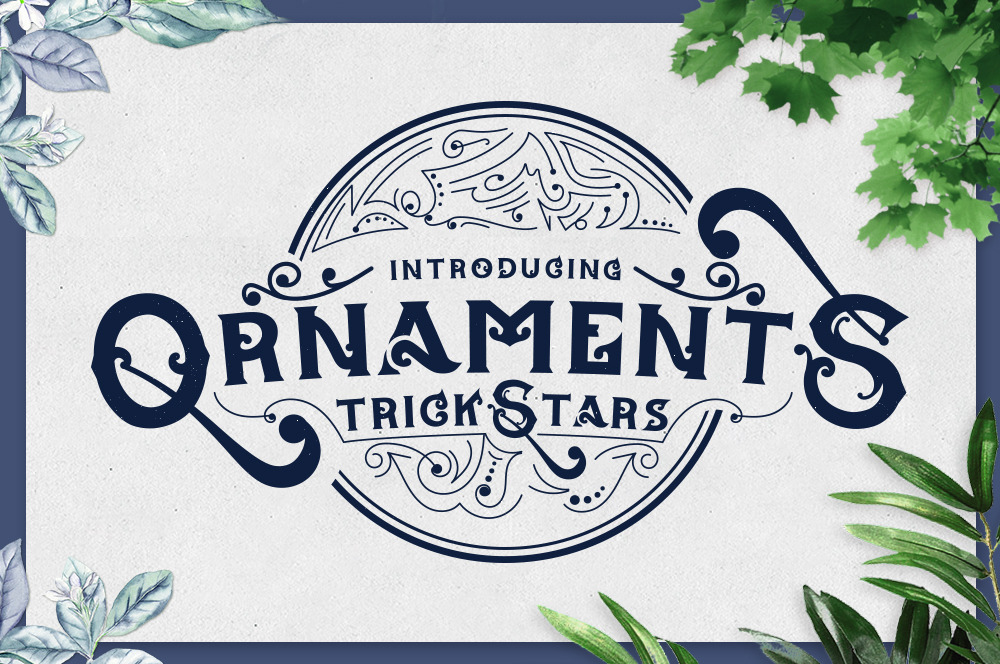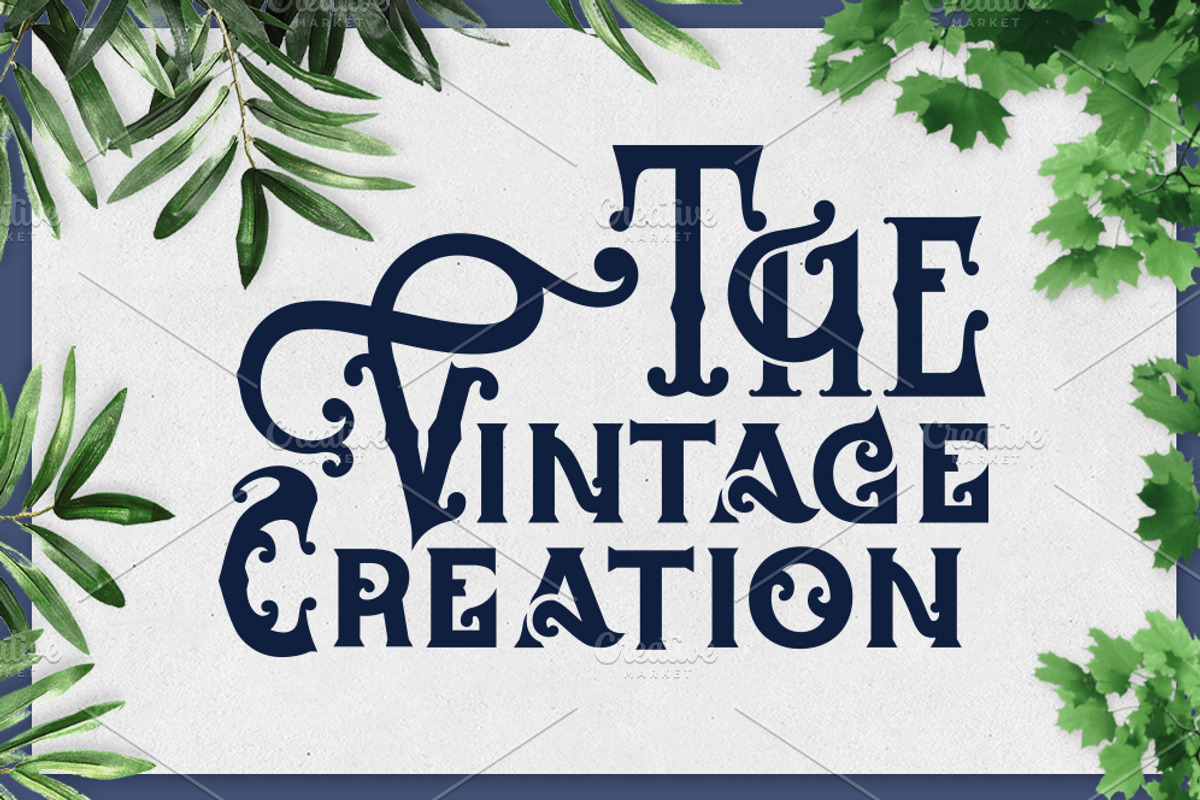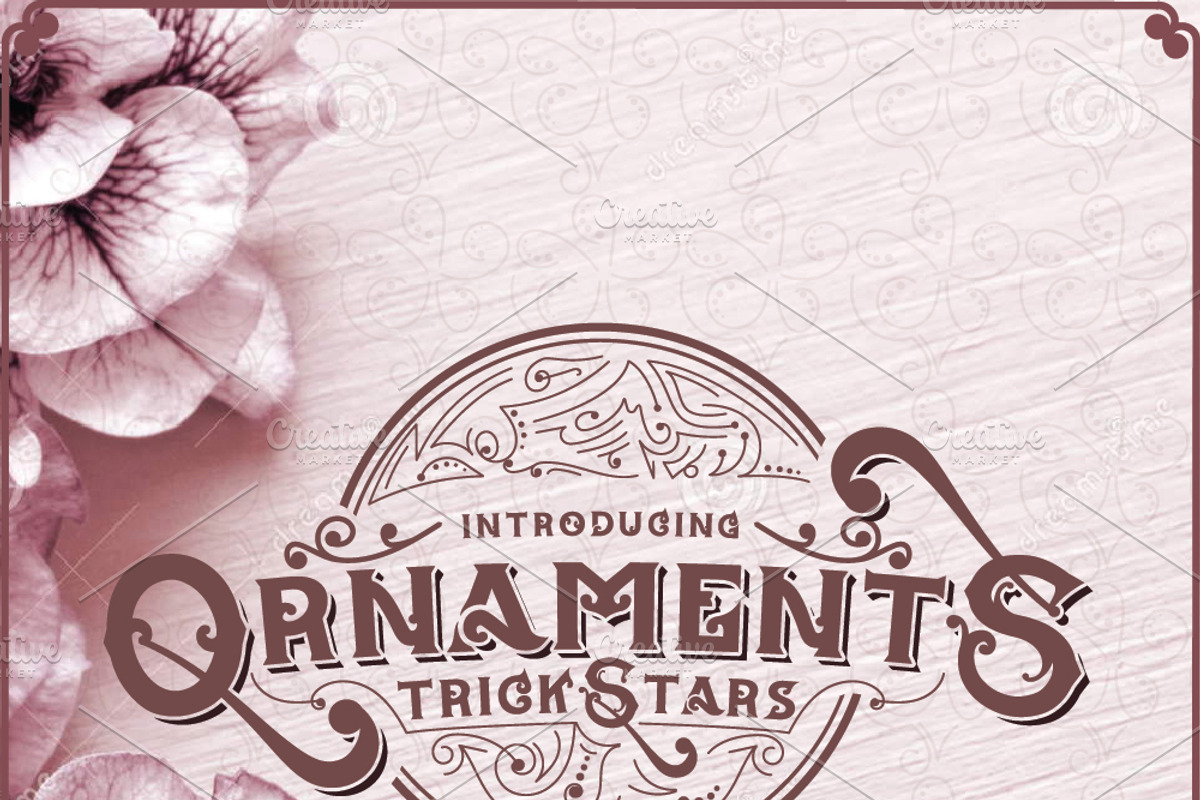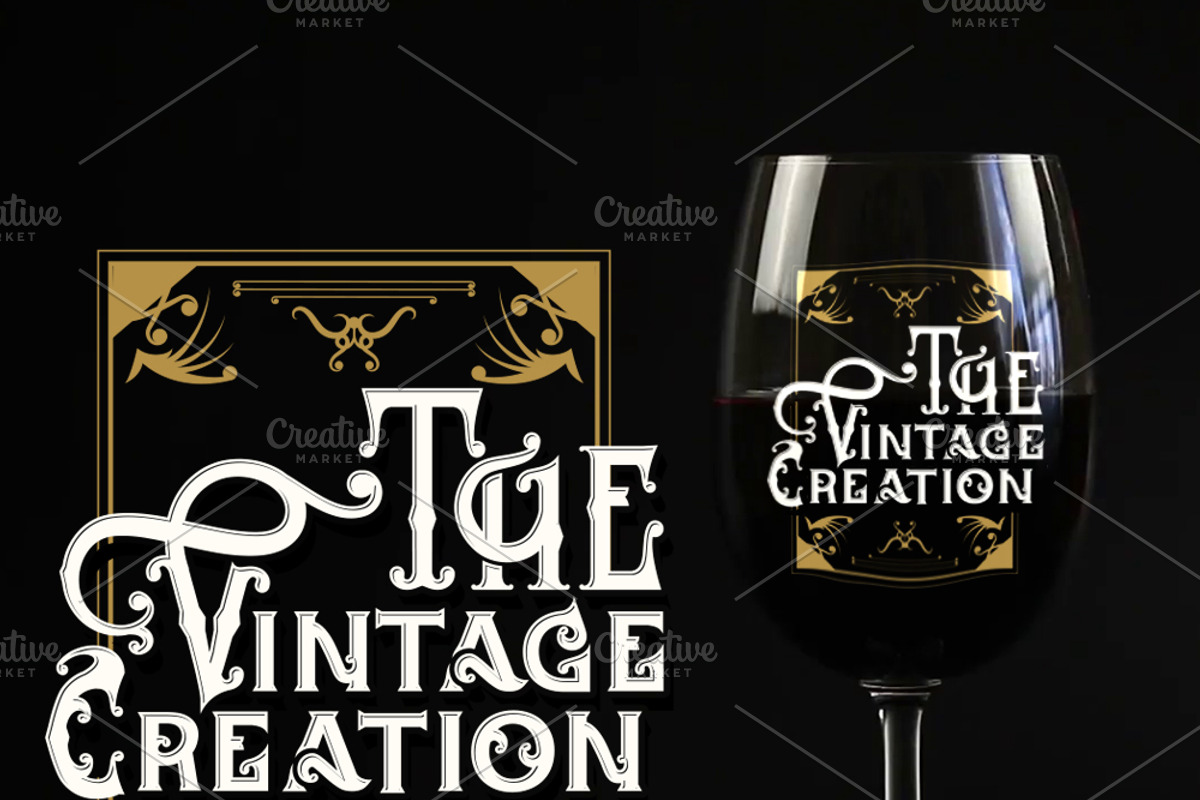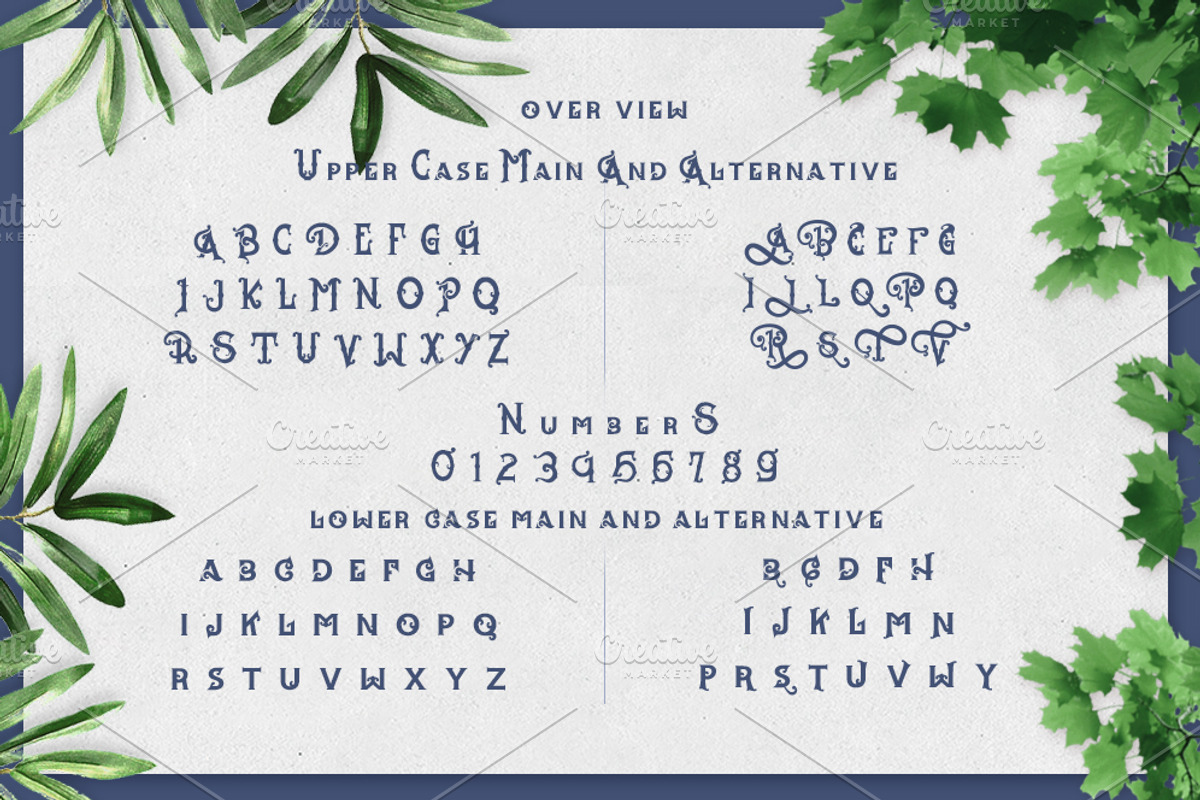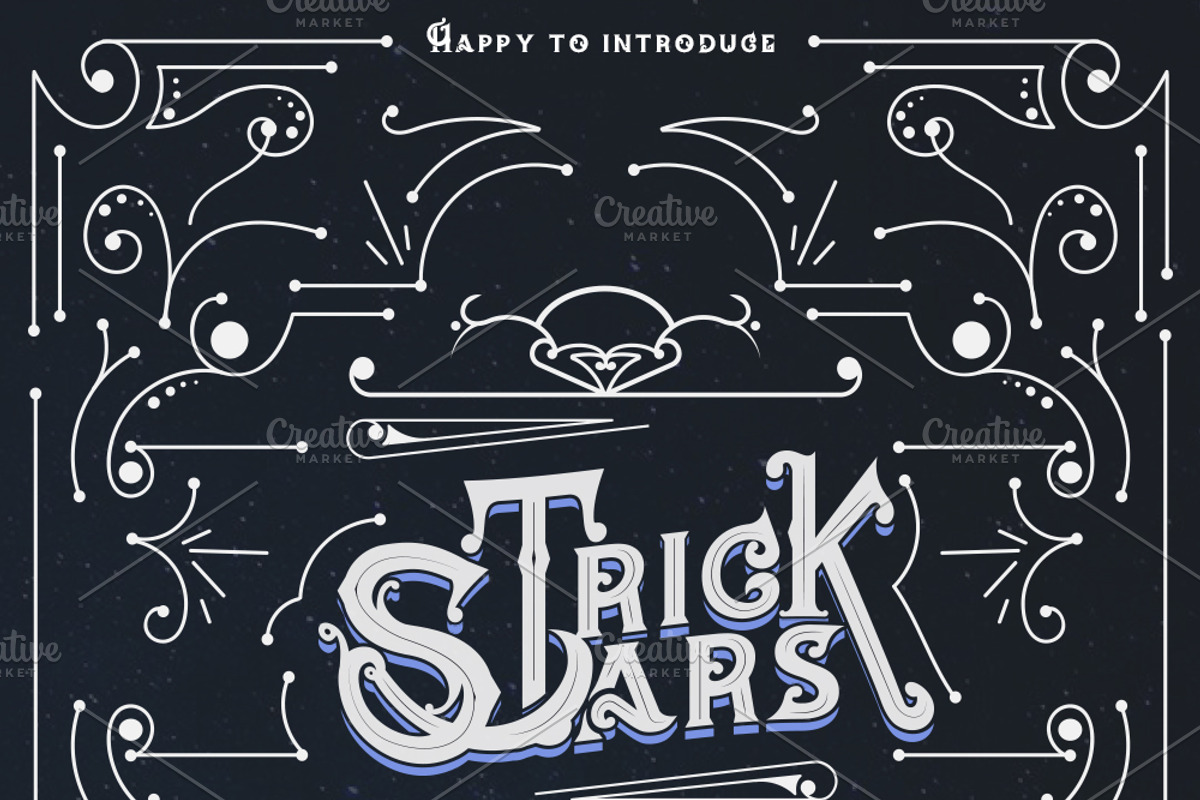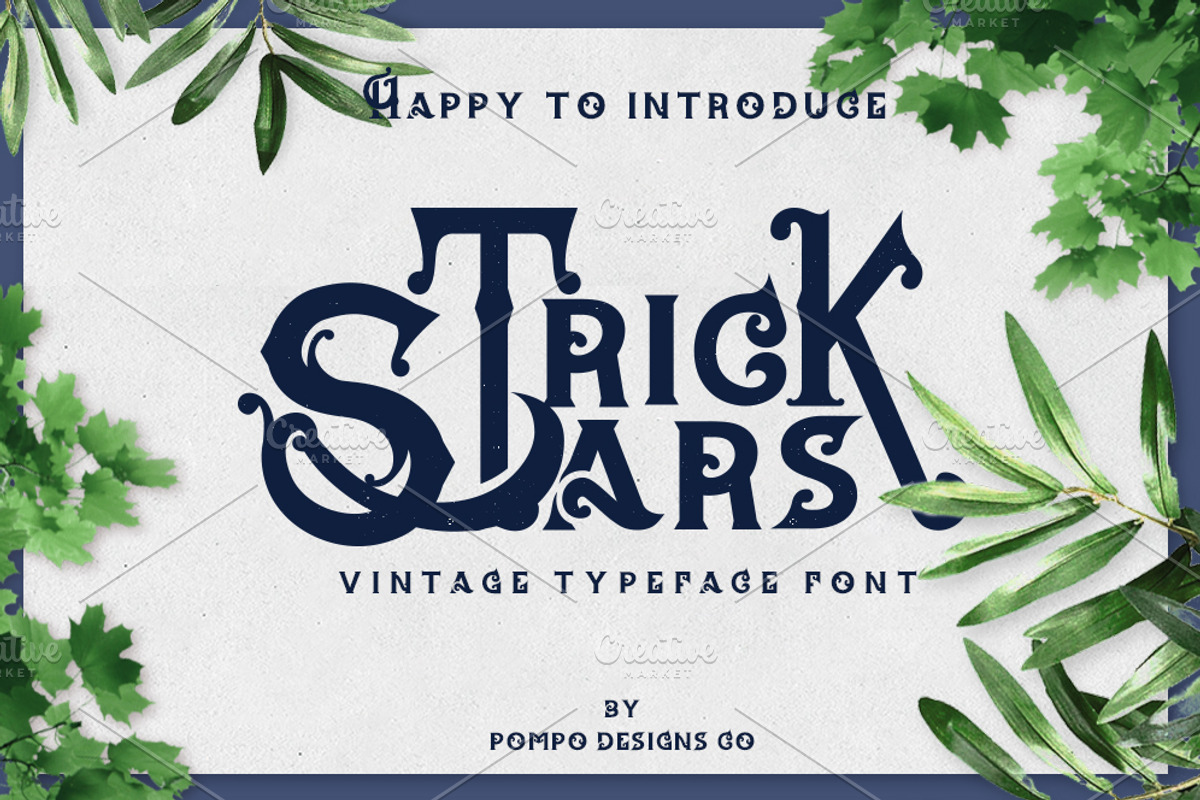
TrickStars Font + Extra Ornaments
Details TrickStars Font is inspired display font comes with opentype featuresand alot of alternative Glyph that can be layered to create different Styles.
- Layered font system.
- Character Set A-Z.
- Numerals & Punctuations.
- Accents (Multilingual characters).
you can use TrickStars Font+Extra Ornaments in all type of (( logo, label, banners, posters, menus, etc )).